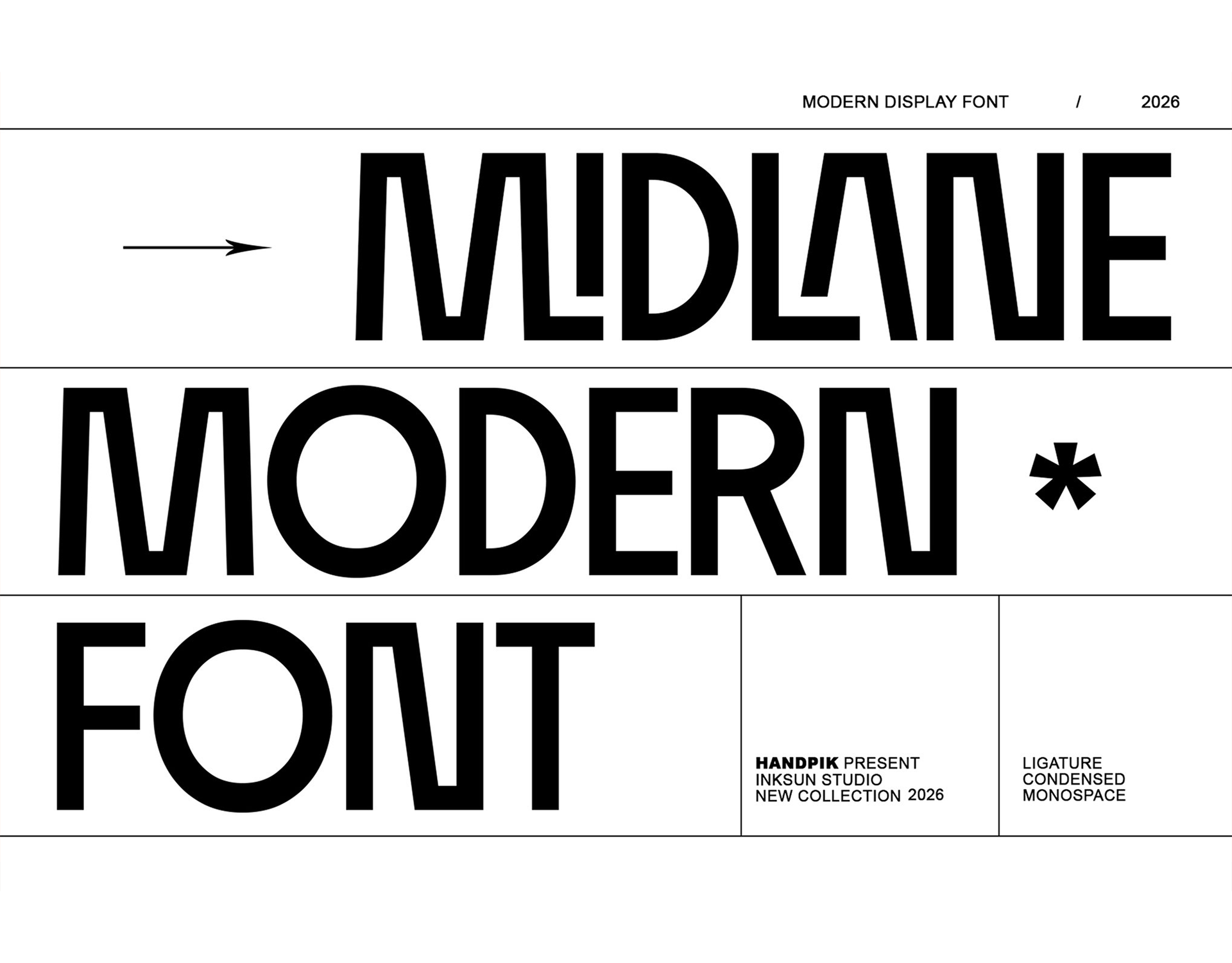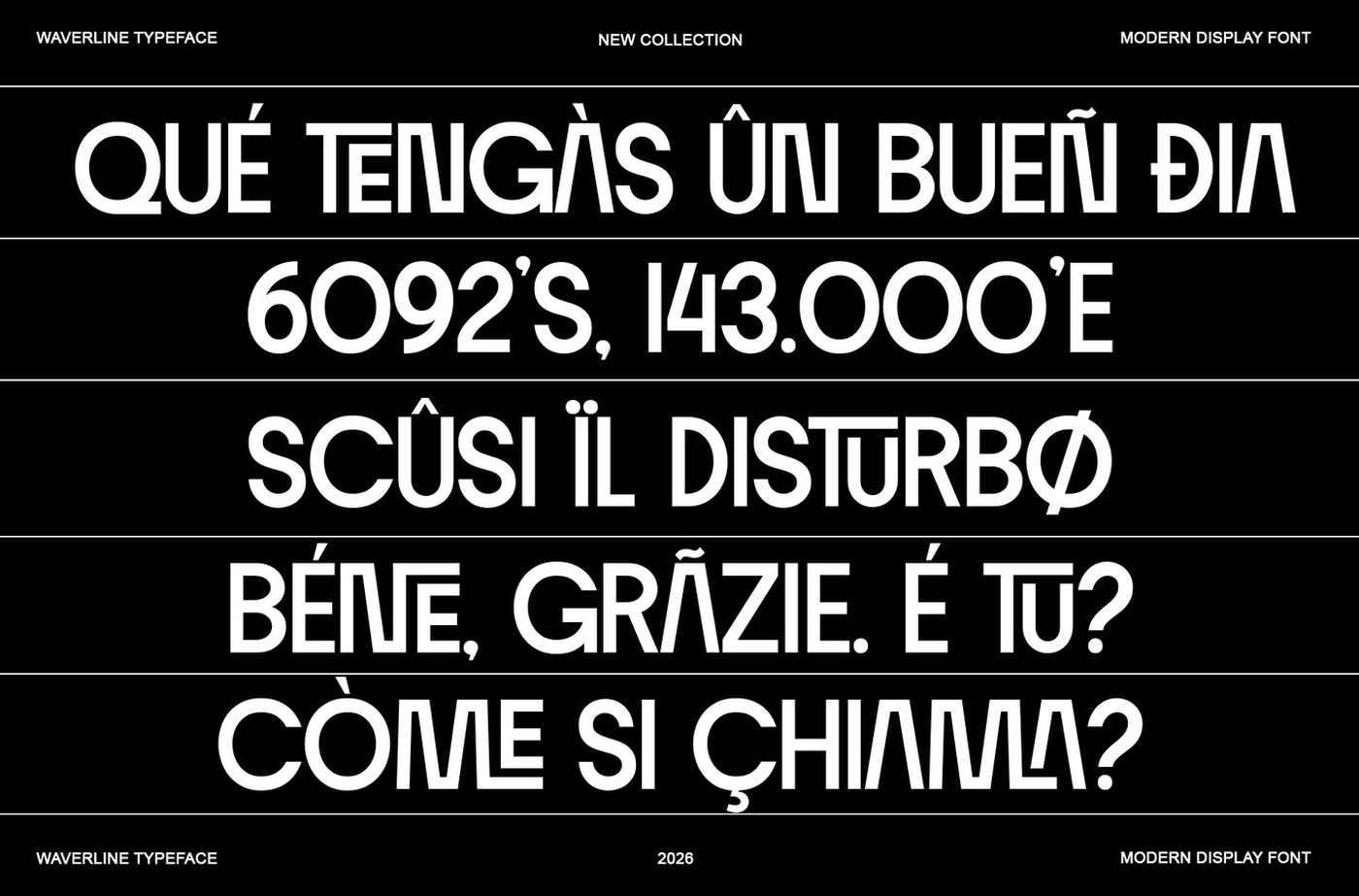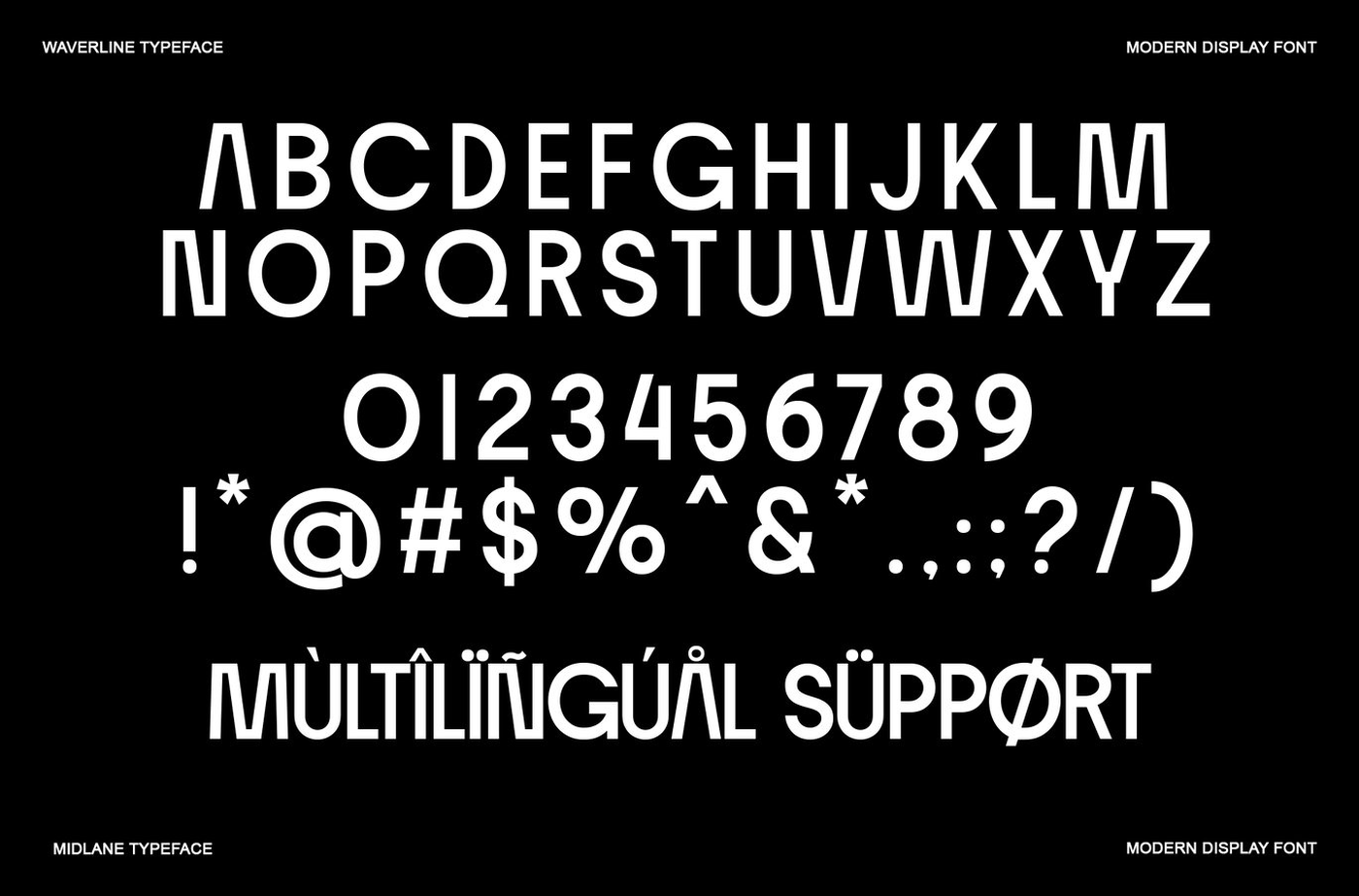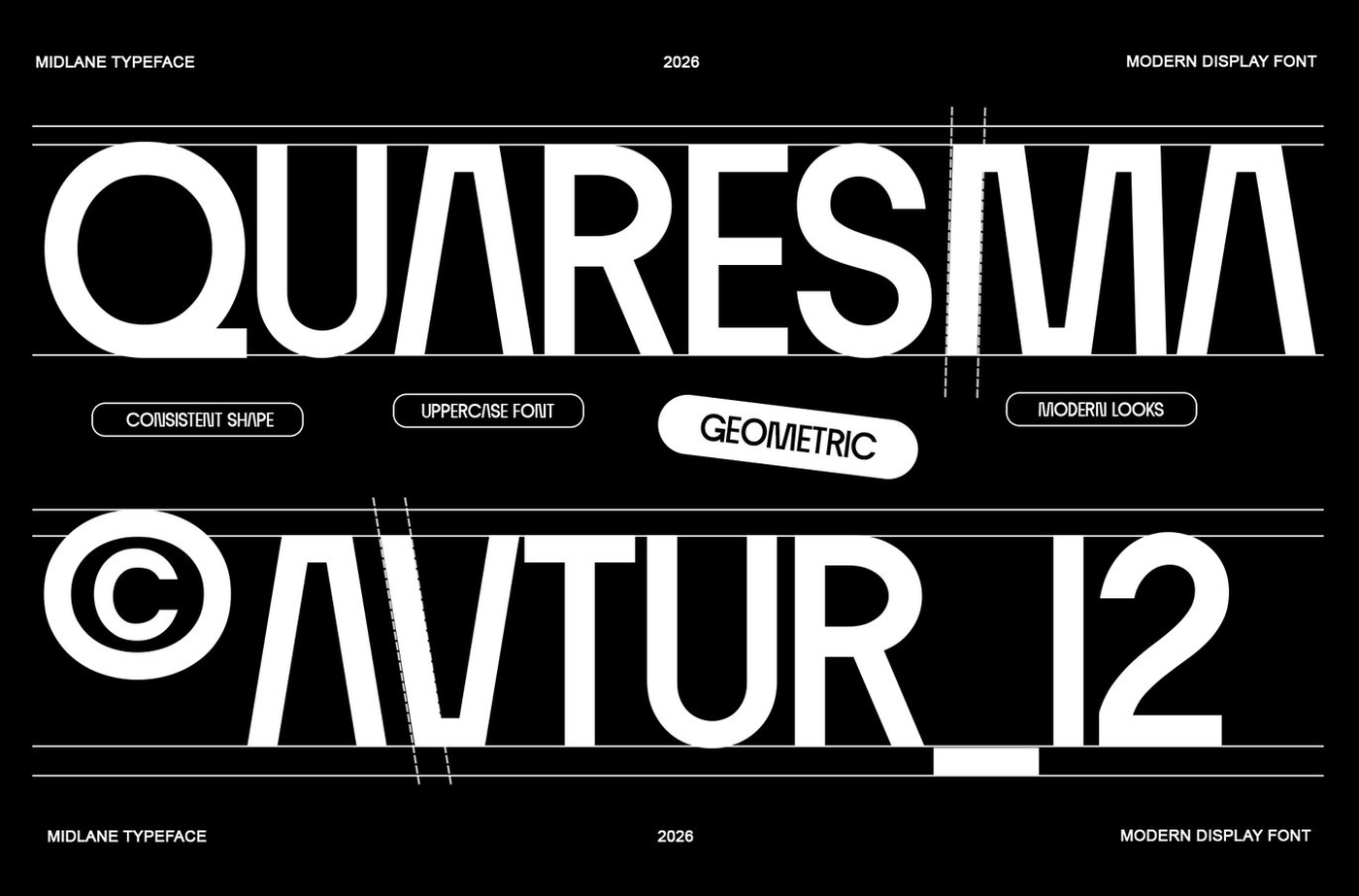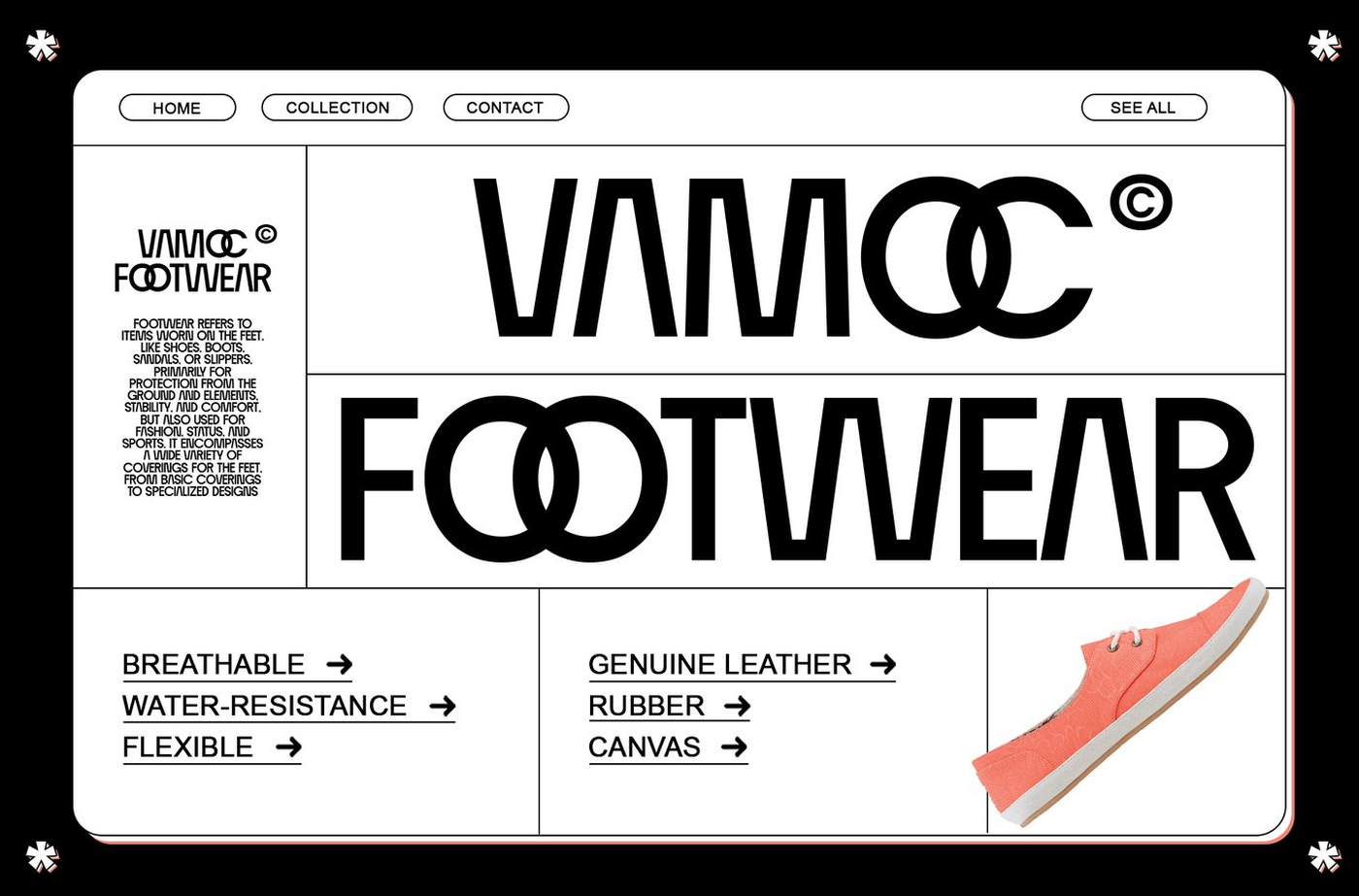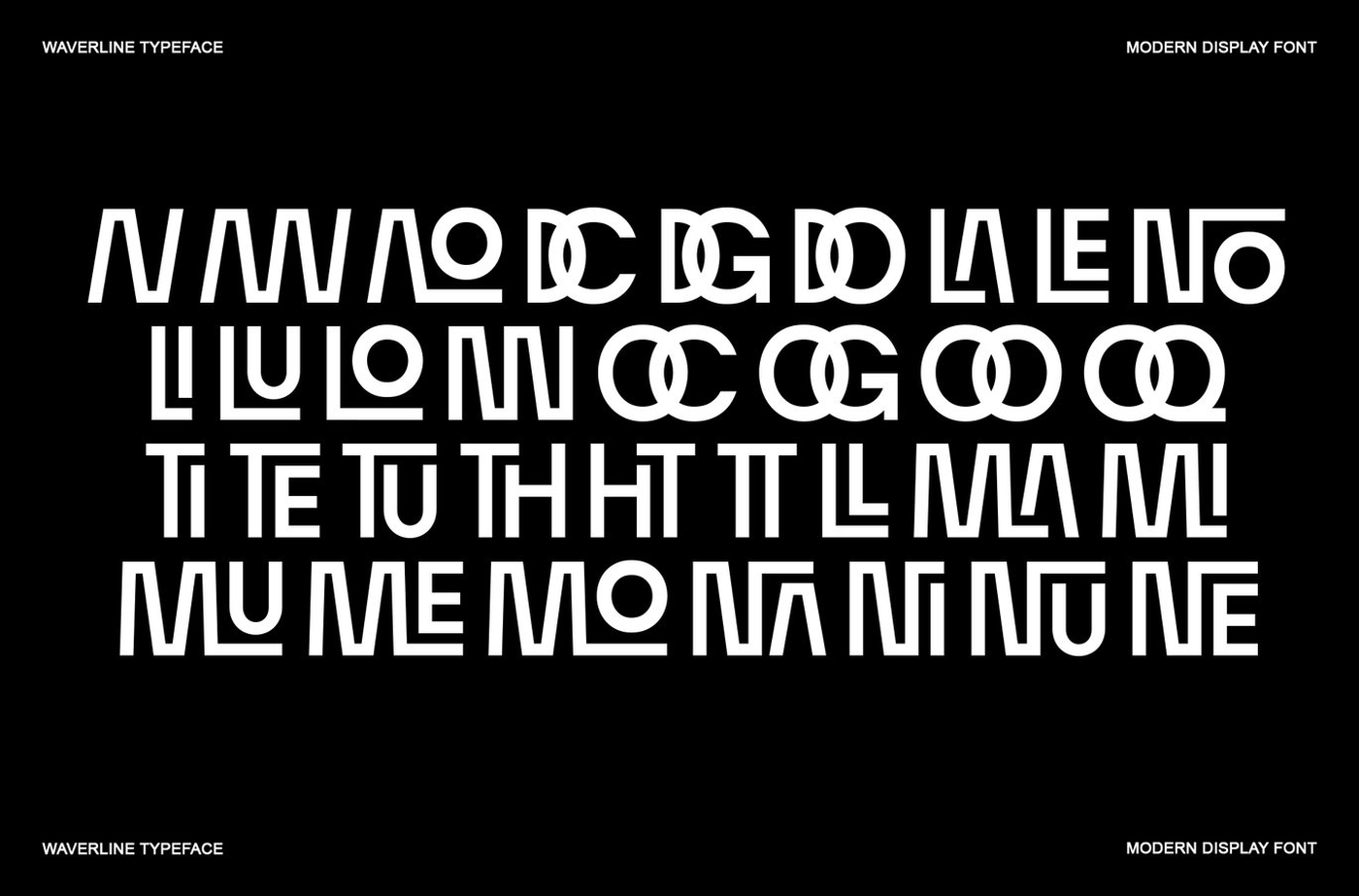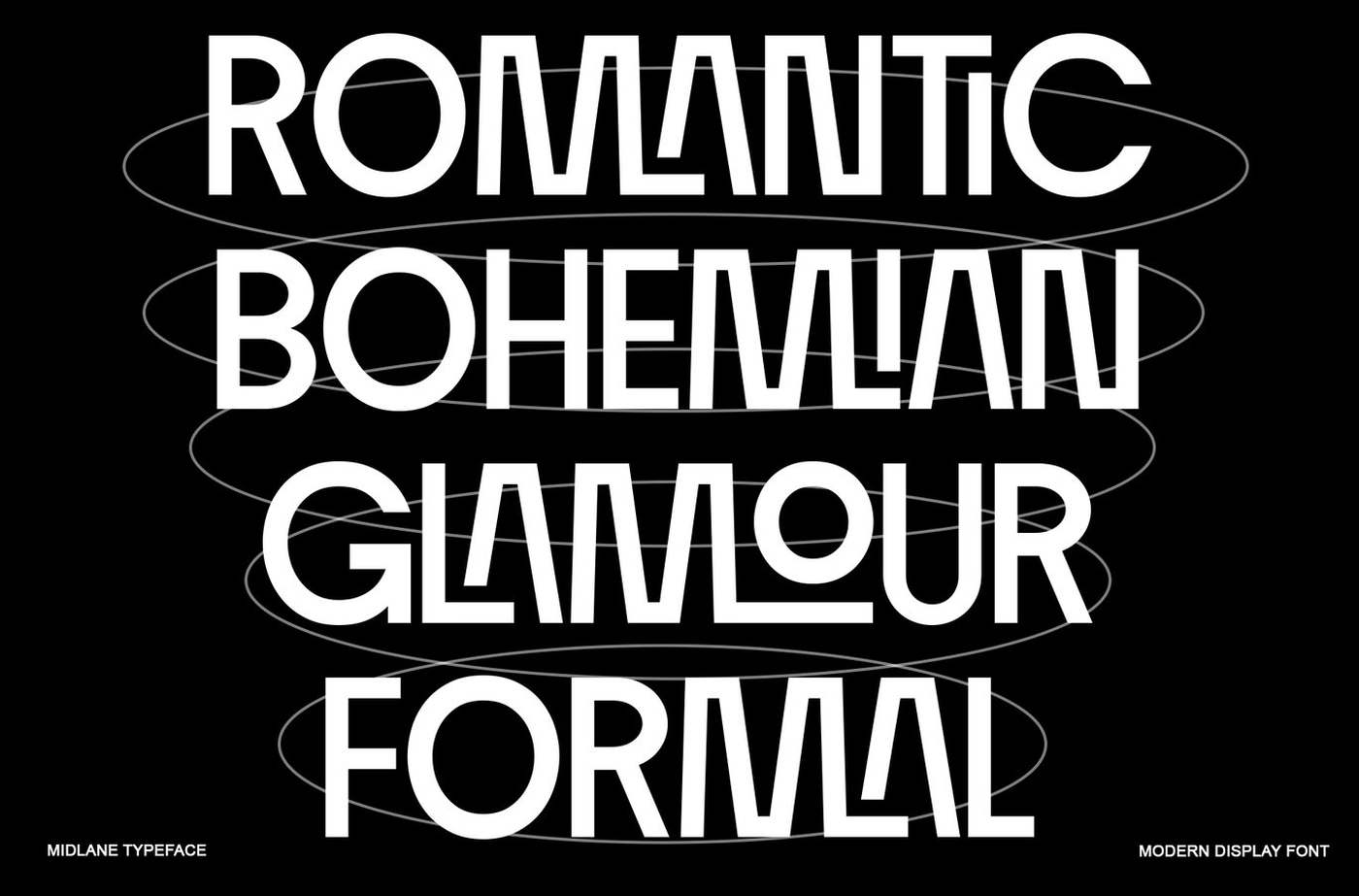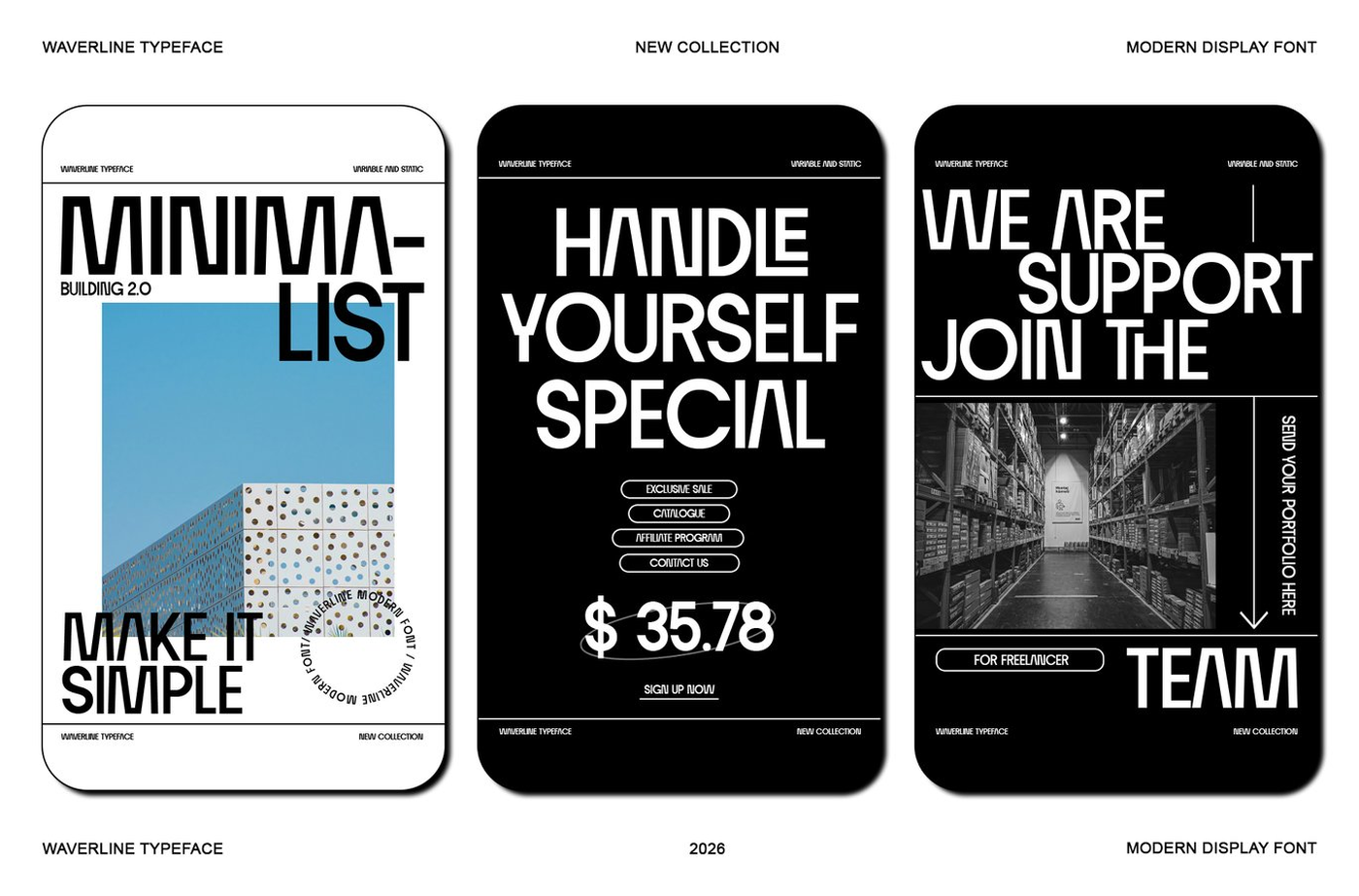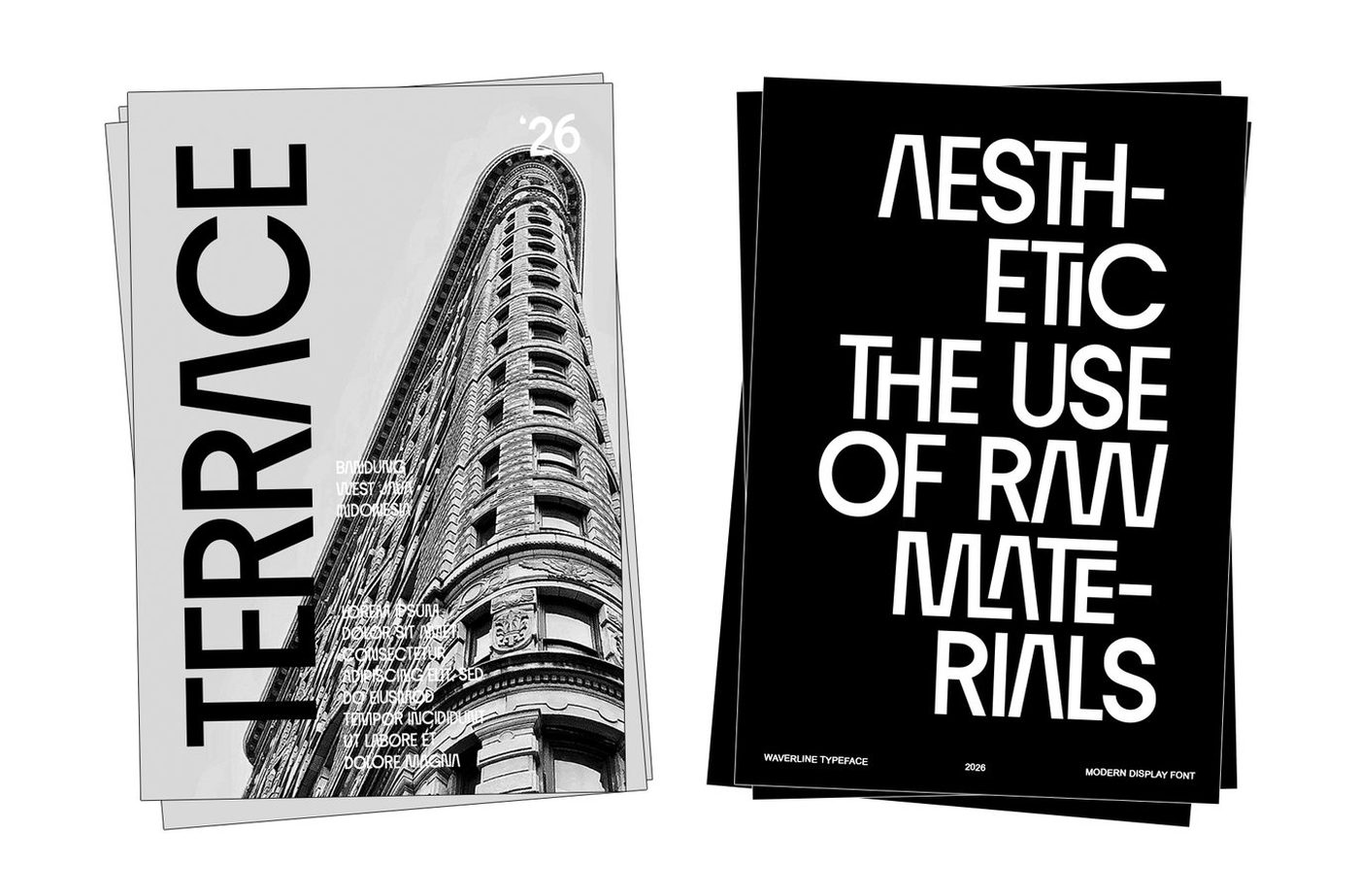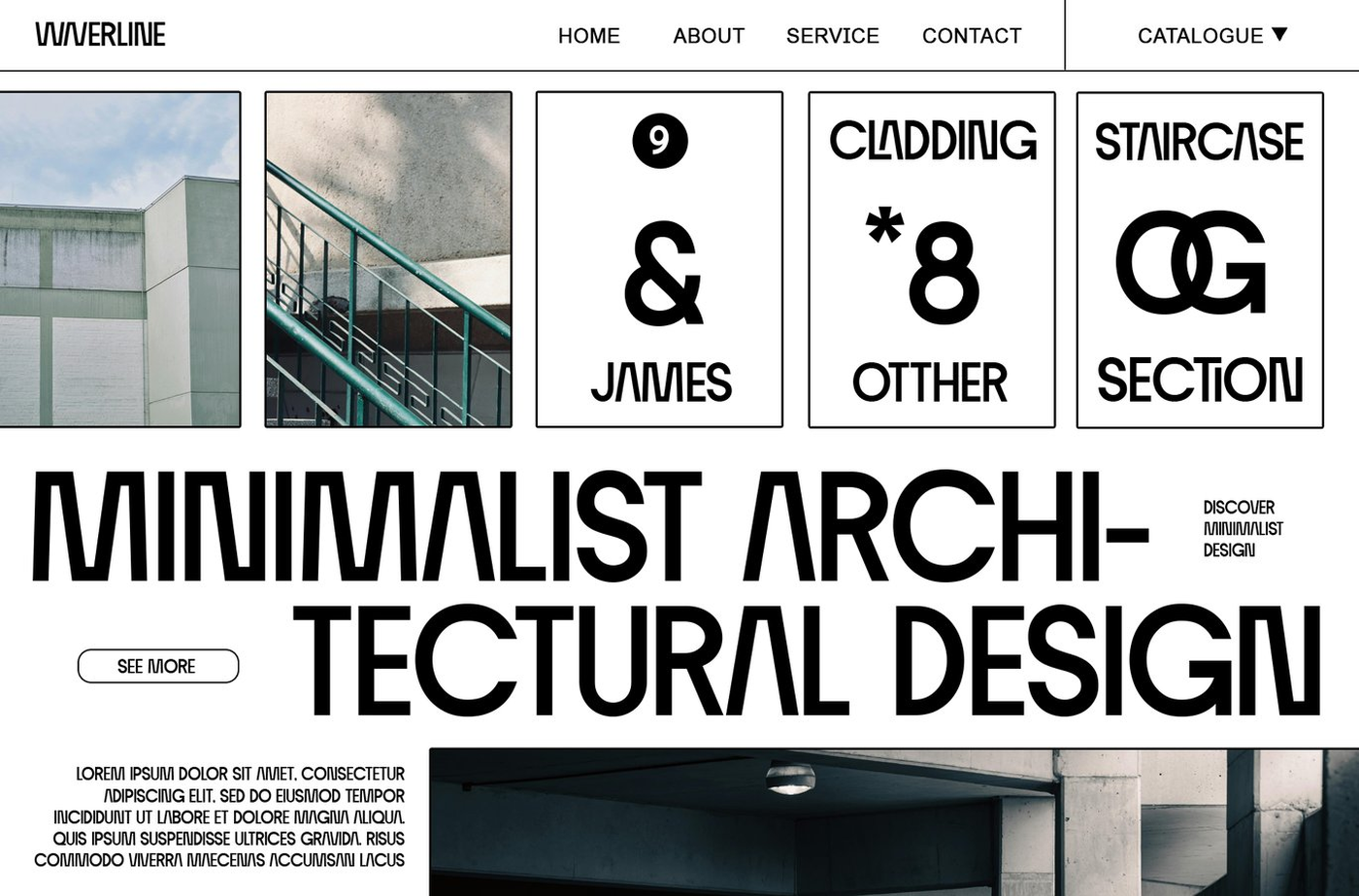
Midlane - Modern Display Font
This font is a modern display sans-serif with bold, condensed, and assertive characters. Its proportions are tall and slender, making each letter appear dominant and powerful when used in large sizes. The stroke thickness is consistent (monoline), without any thin-thick contrast, resulting in a clean and solid appearance. The letterforms tend to be geometric, but not completely rigid—there's a hint of humanism in some of the curves and angles that give them a more lively feel. The terminals are bold and sharp, giving a modern, editorial, and high-impact feel.